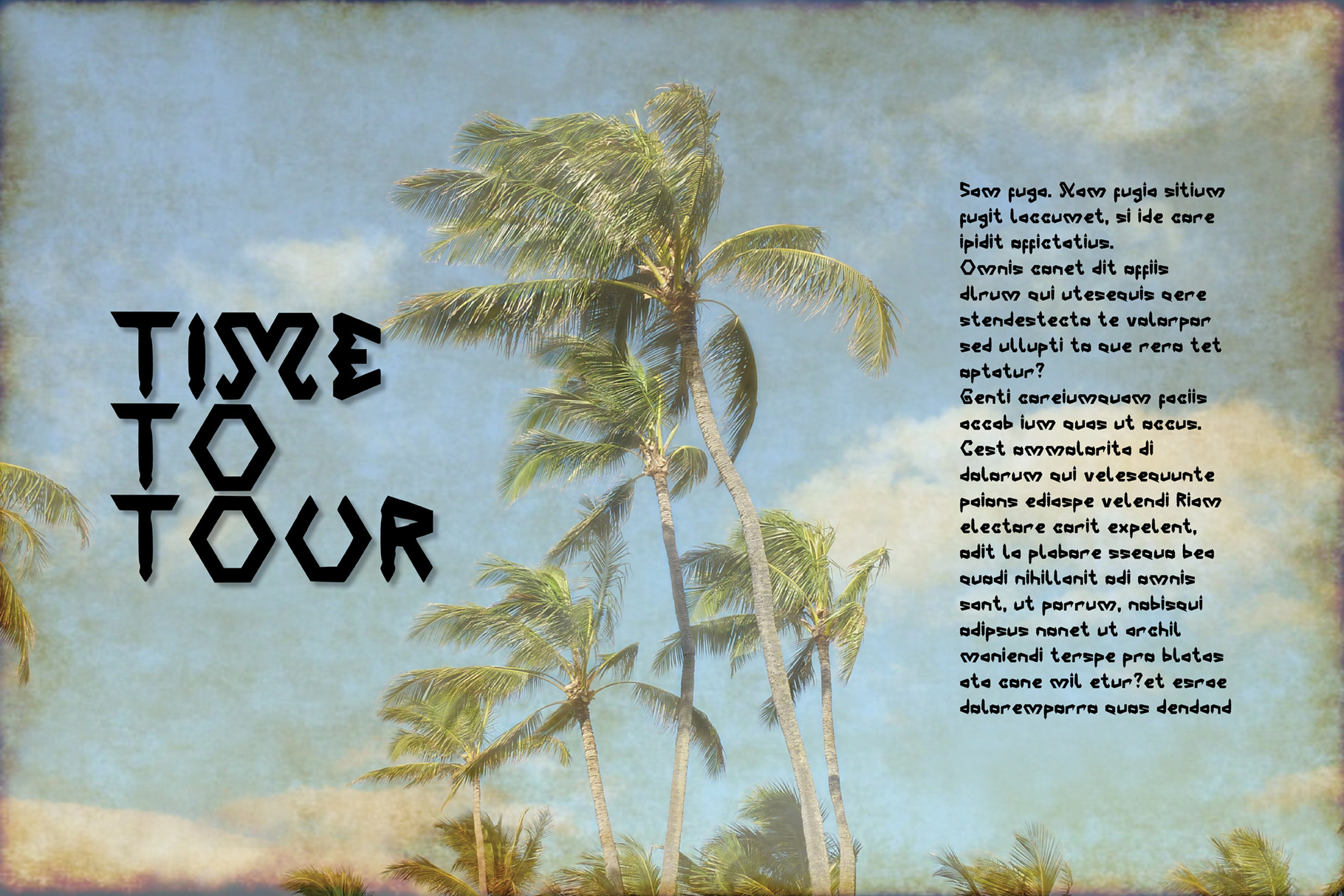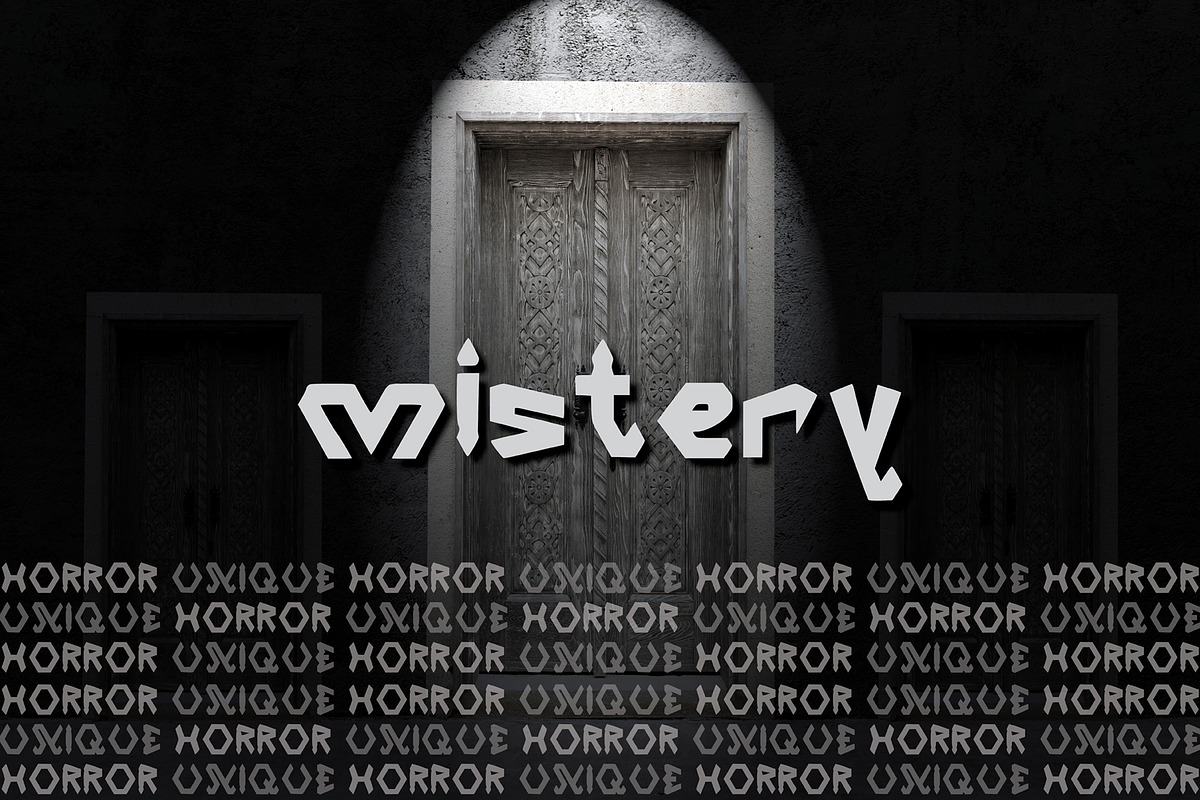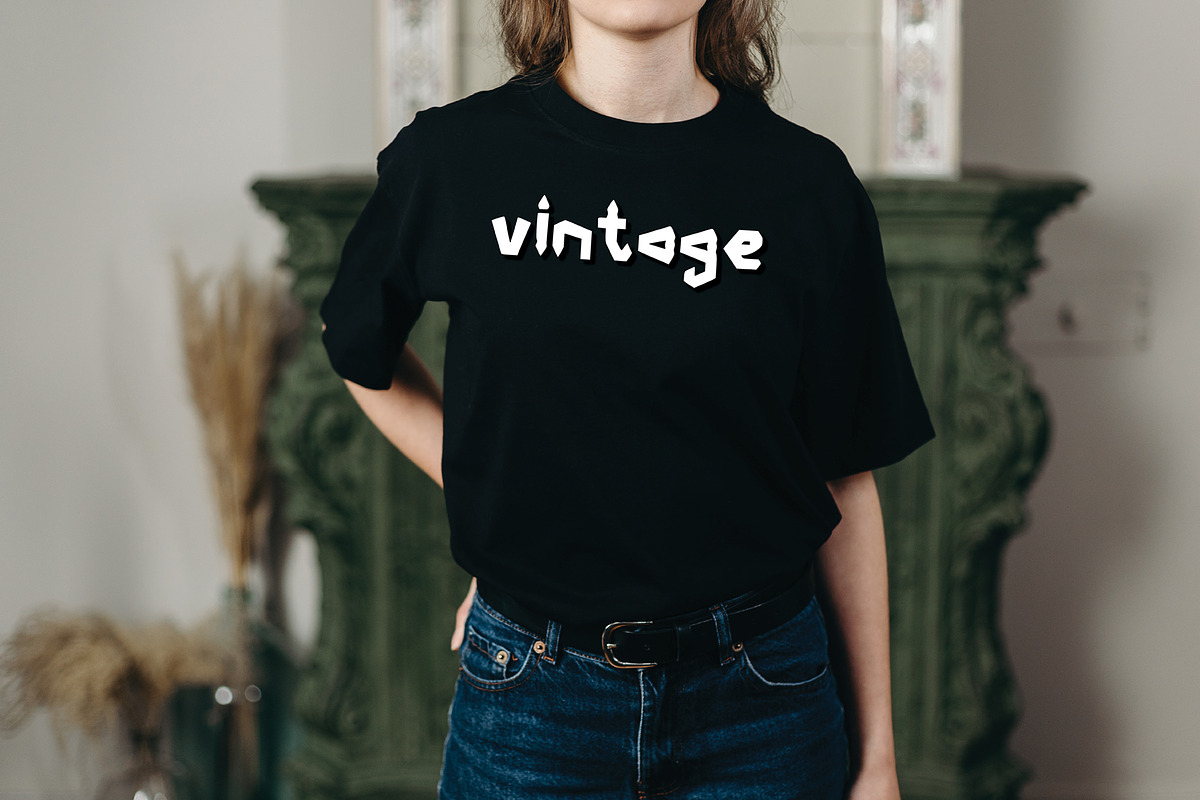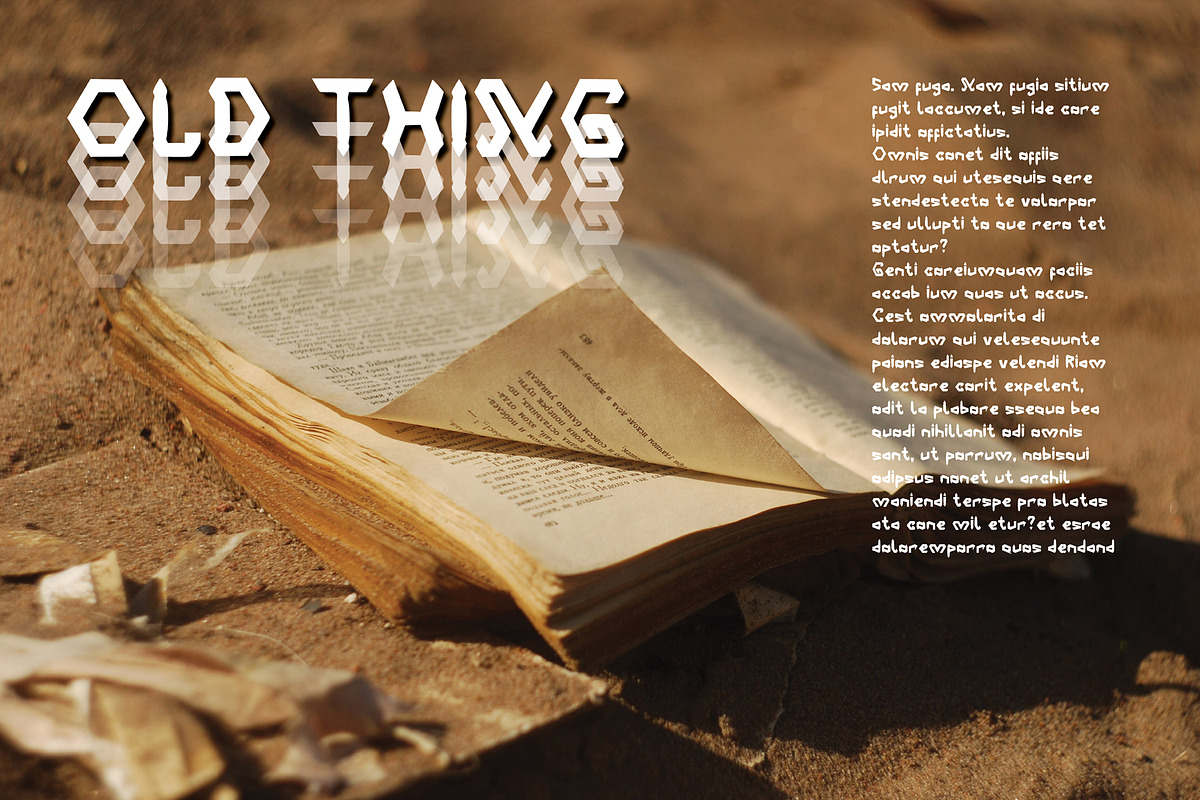
Matang Construct Font
A striking and unique retro font, with a 70s and 80s feel. Perfect for any type of logo, magazine layout, header or other artwork.